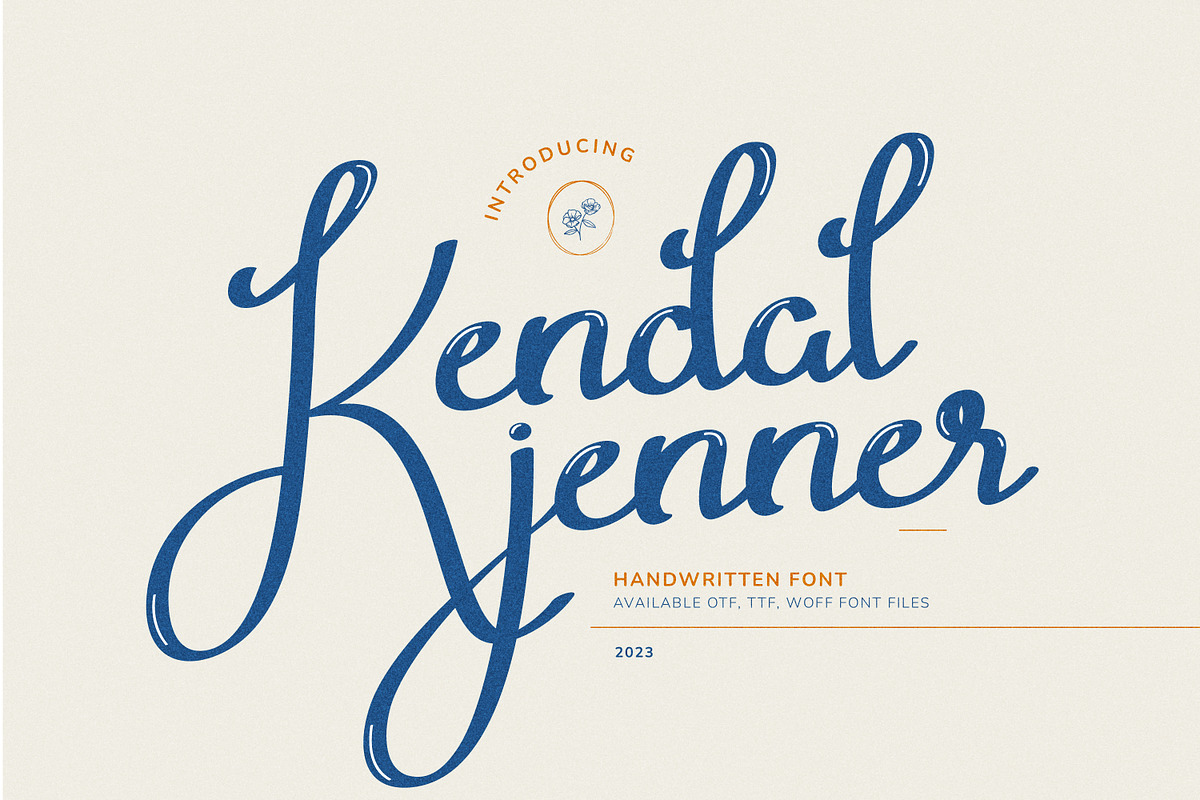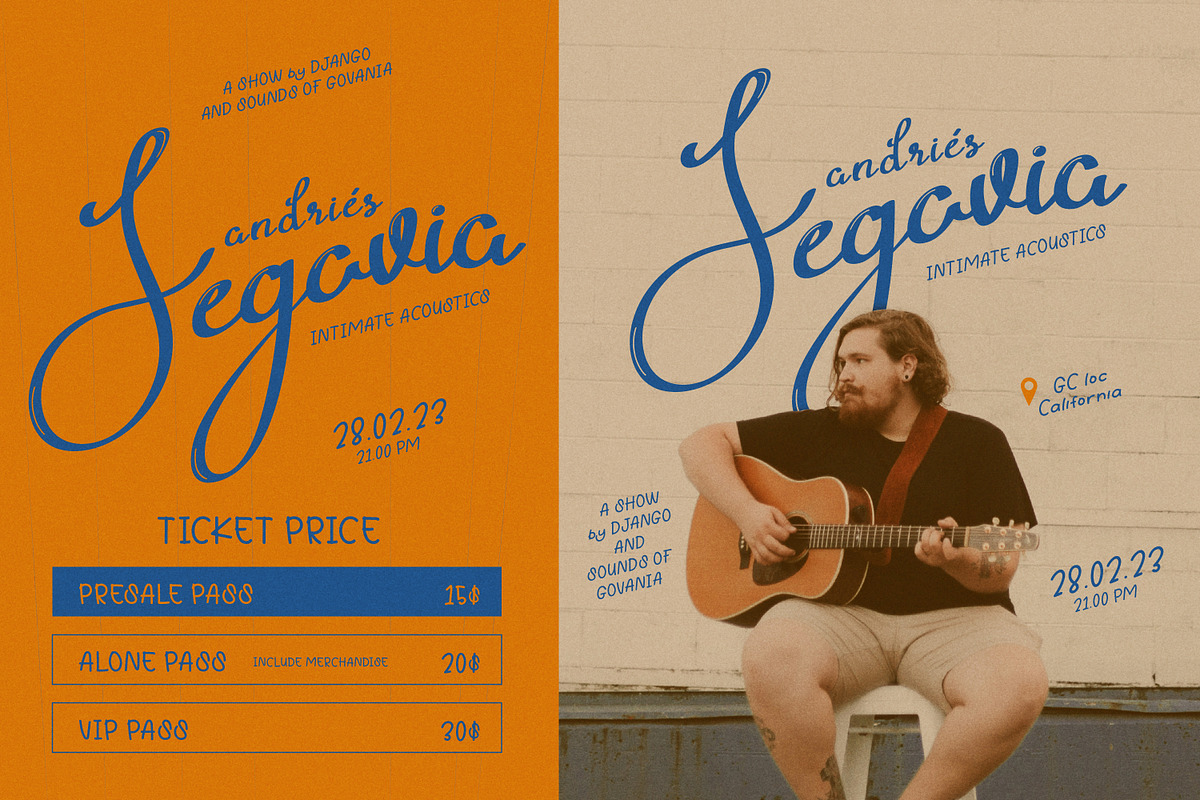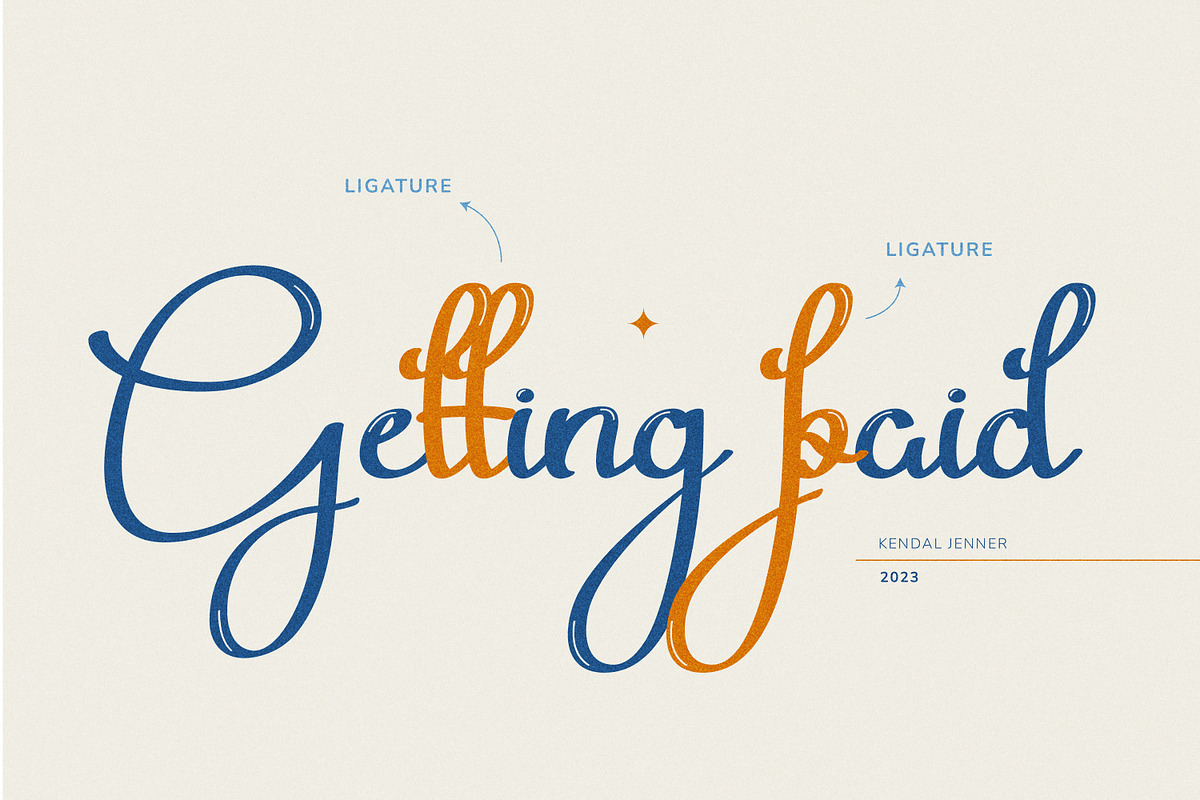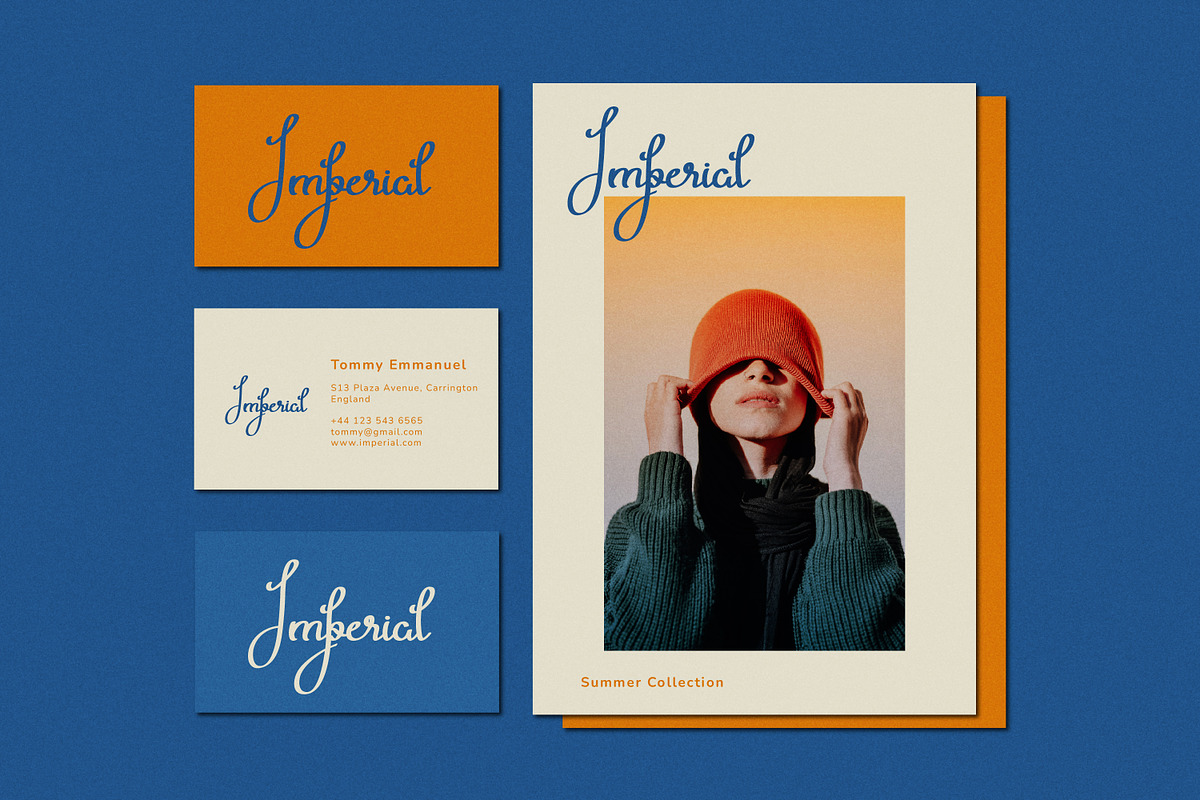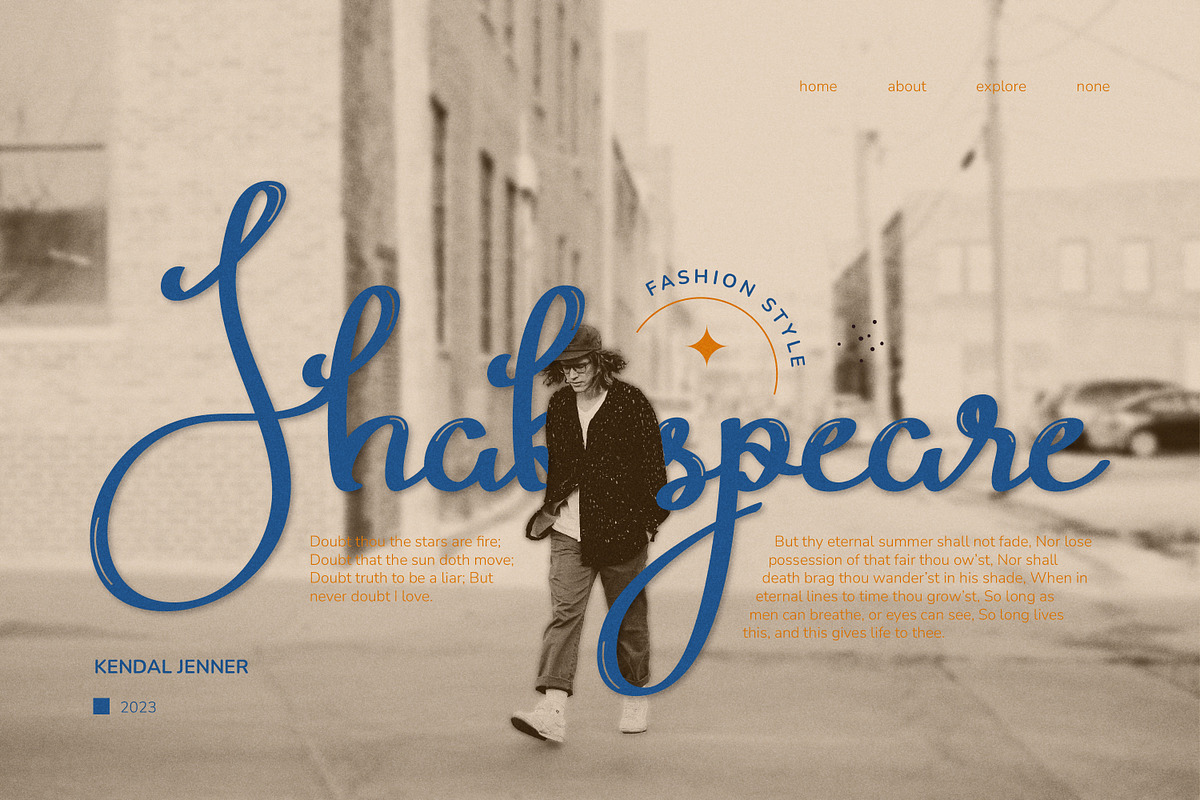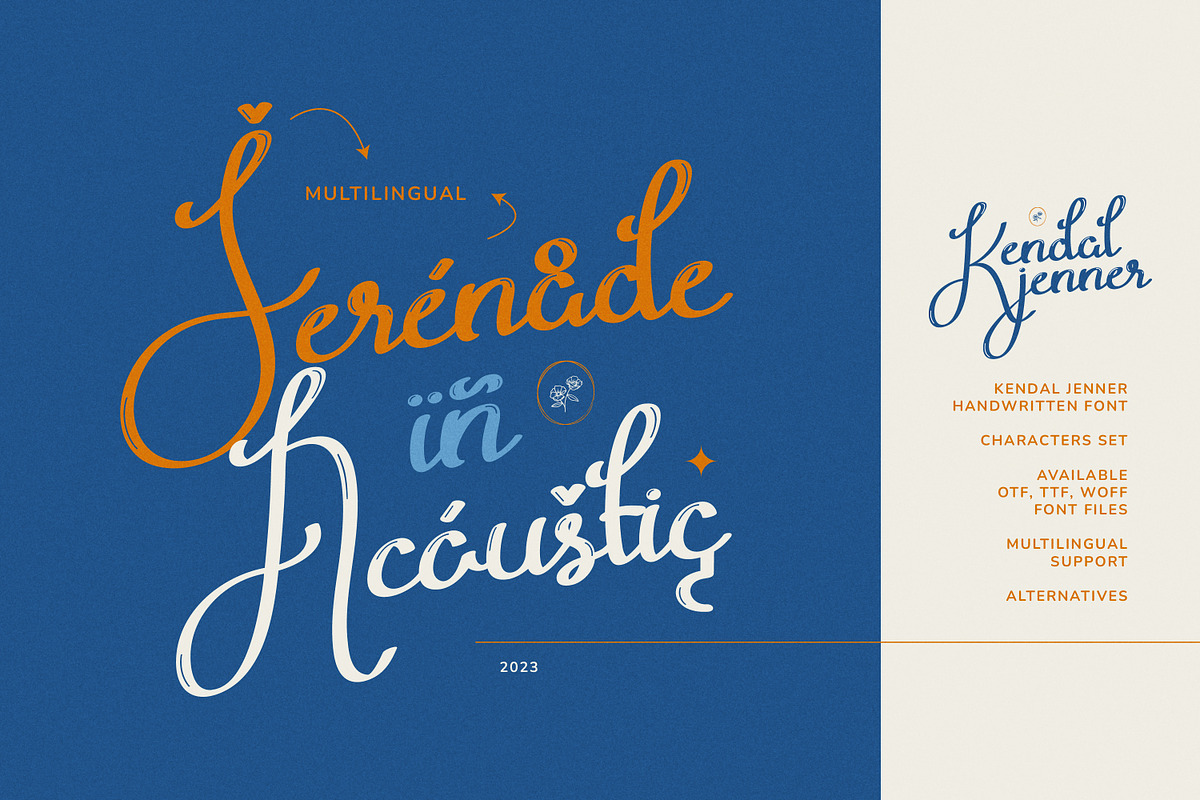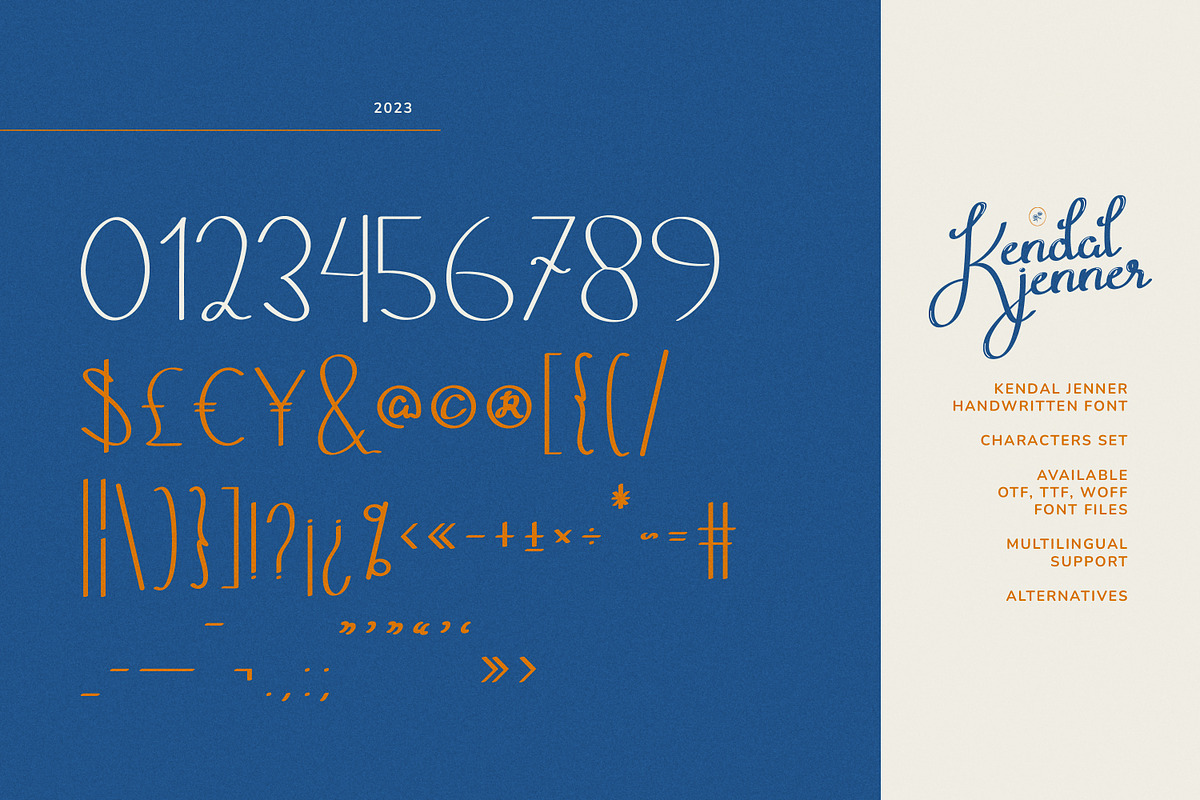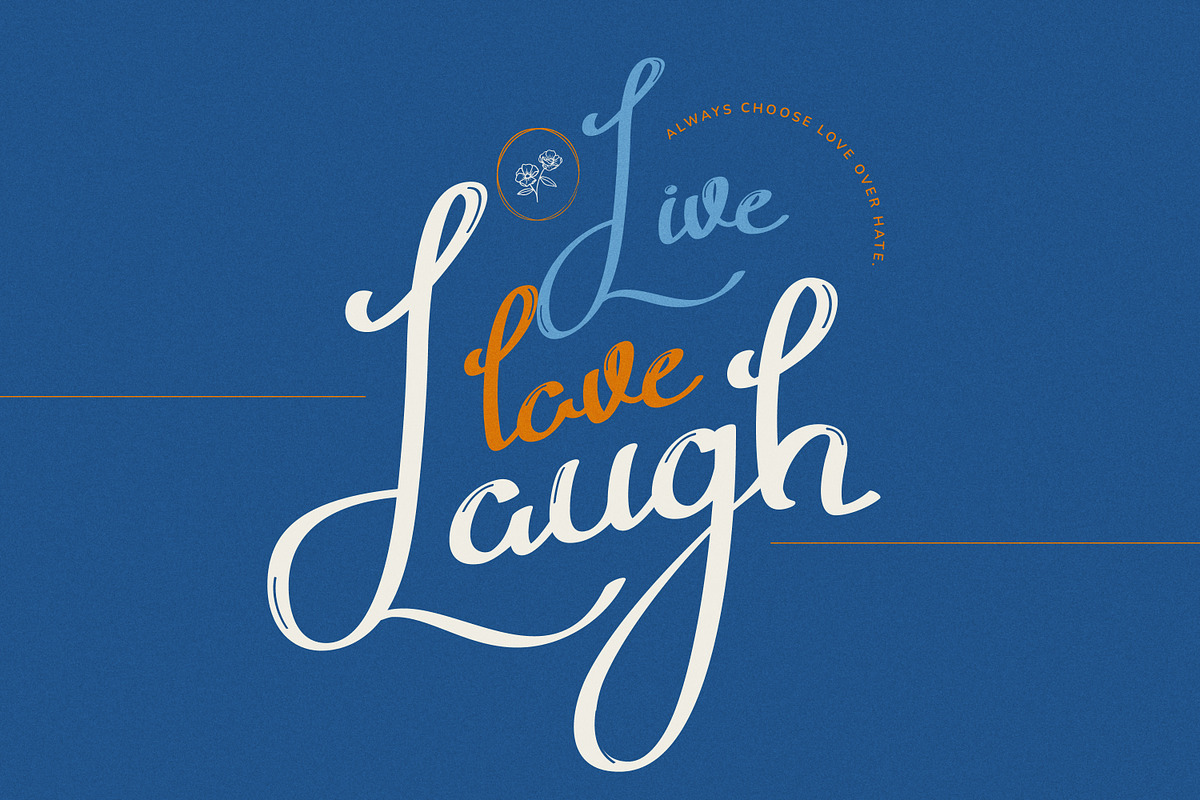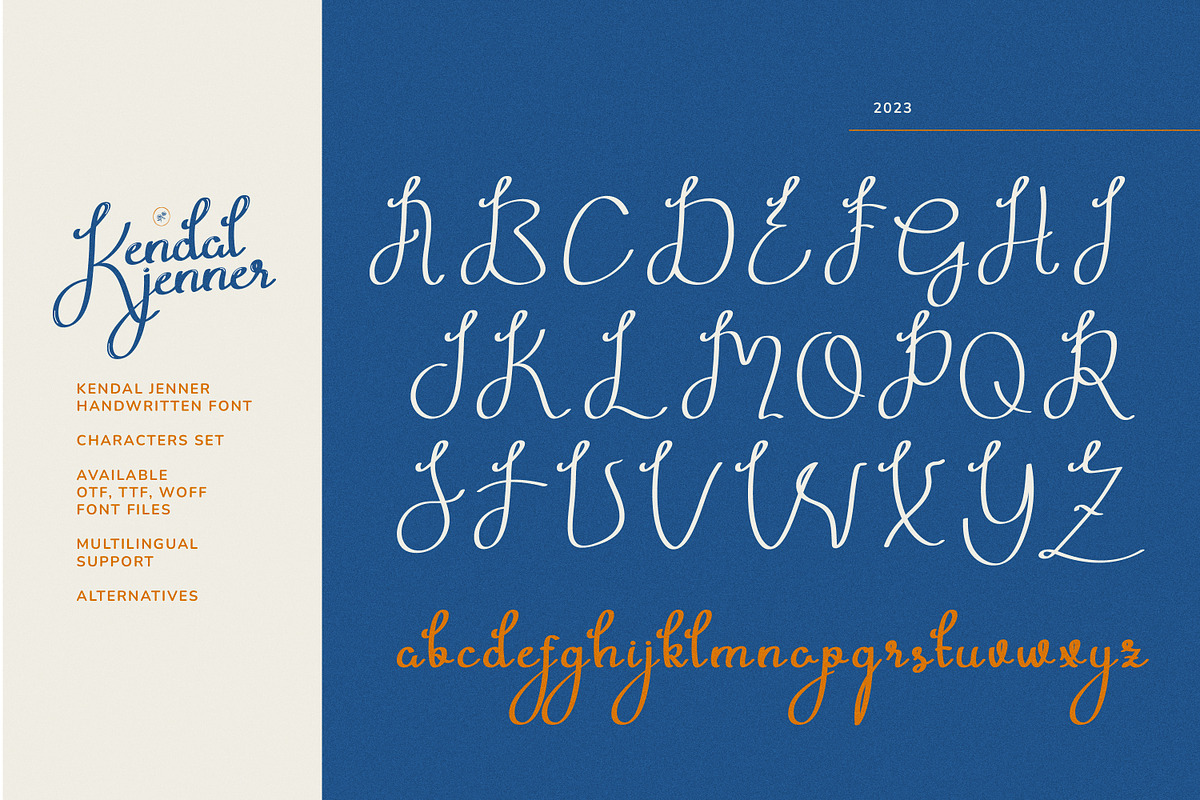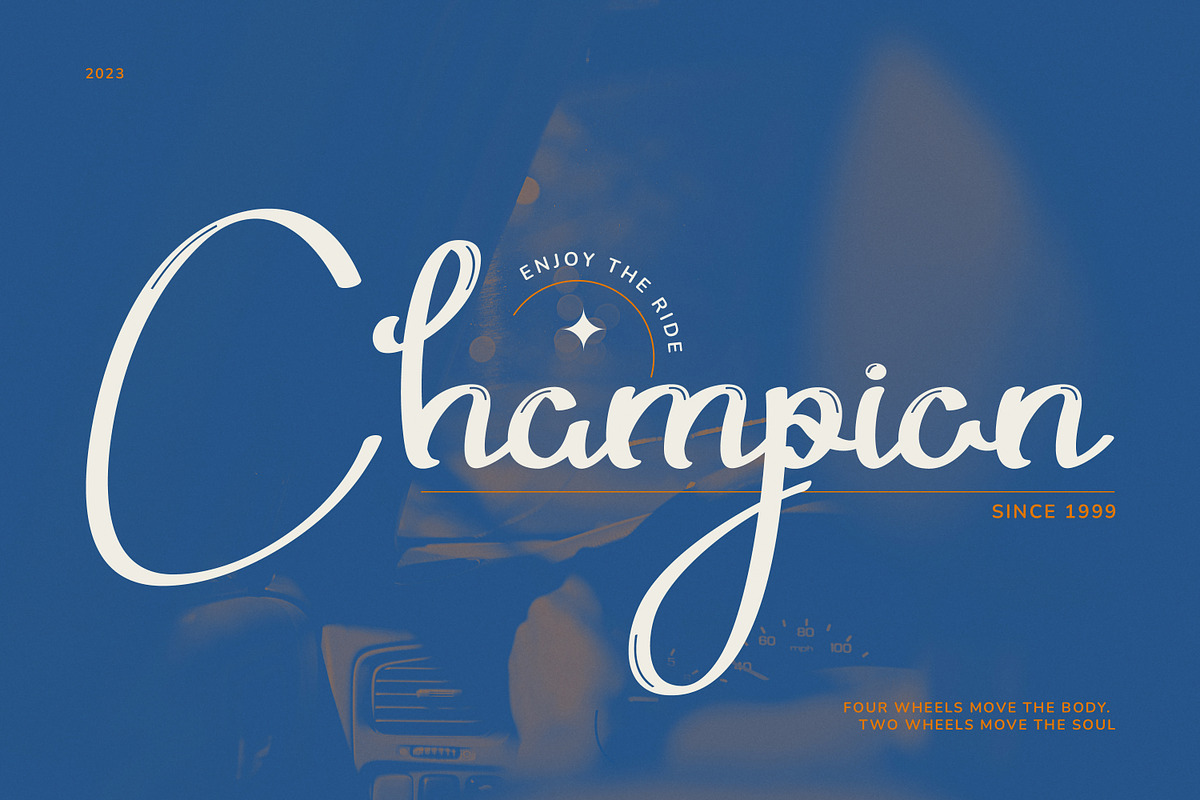
Kendal Jenner Exquisite Handwritten
Kendal Jenner is an exquisite and attractive handwritten font that is the perfect blend of beauty and character. Each letter is carefully crafted with a unique hand-drawn style that captures the essence of organic and natural pen strokes. This font adds a personal touch to any design, making it perfect for invitations, greeting cards, and branding projects.
- OpenType Features (Stylistic Set)